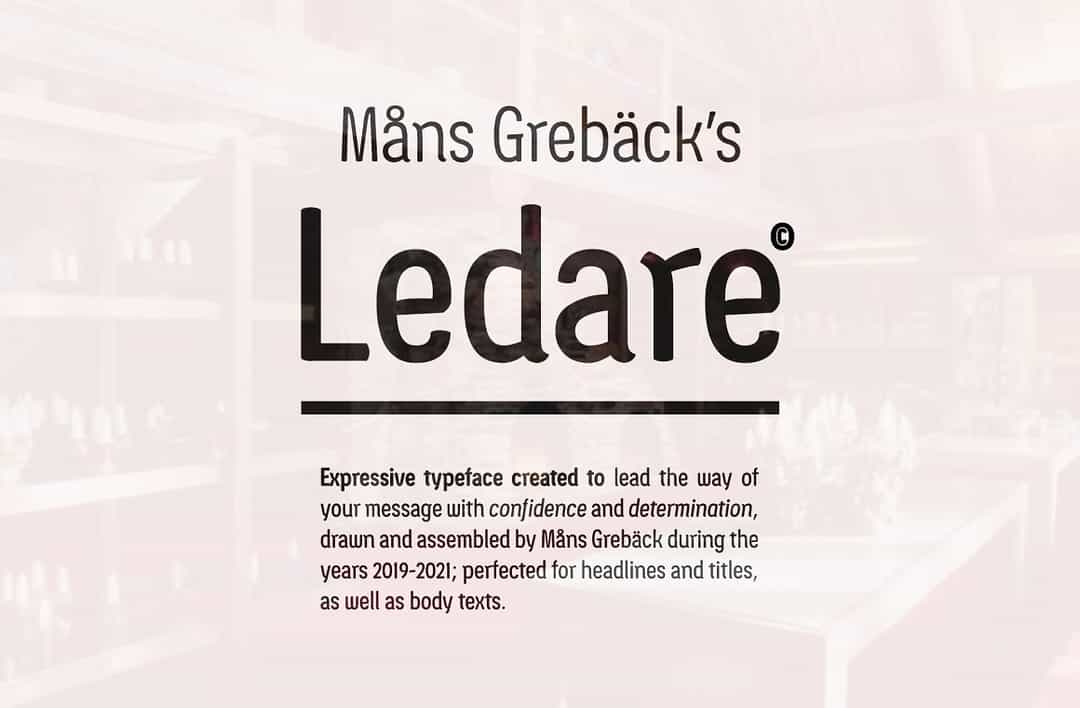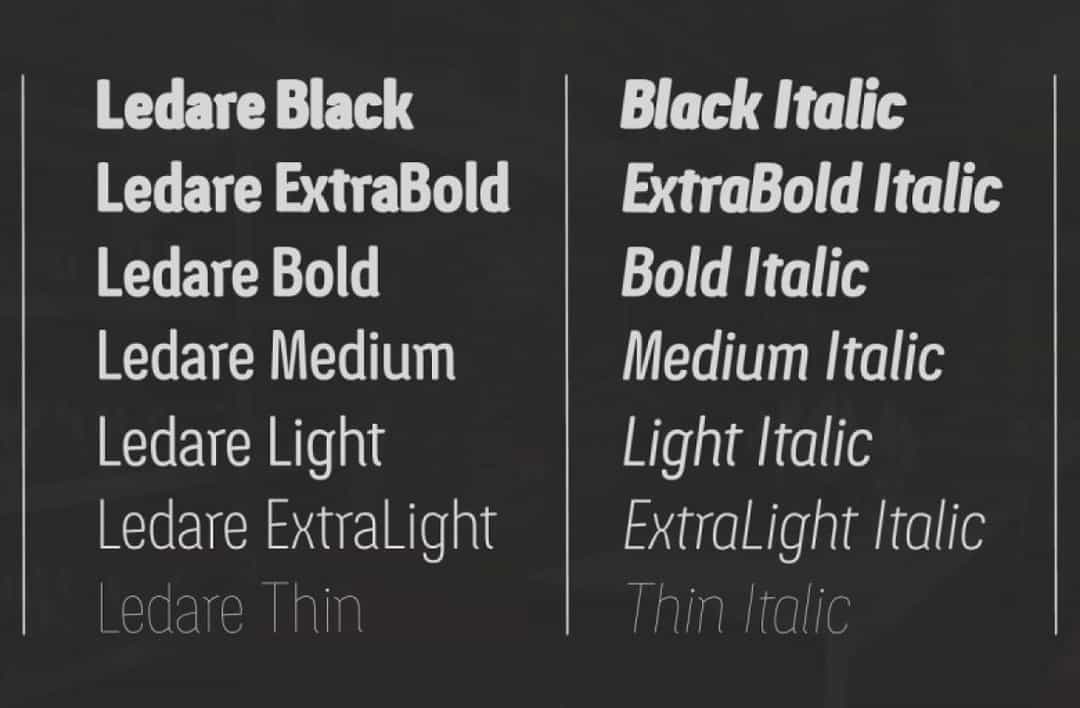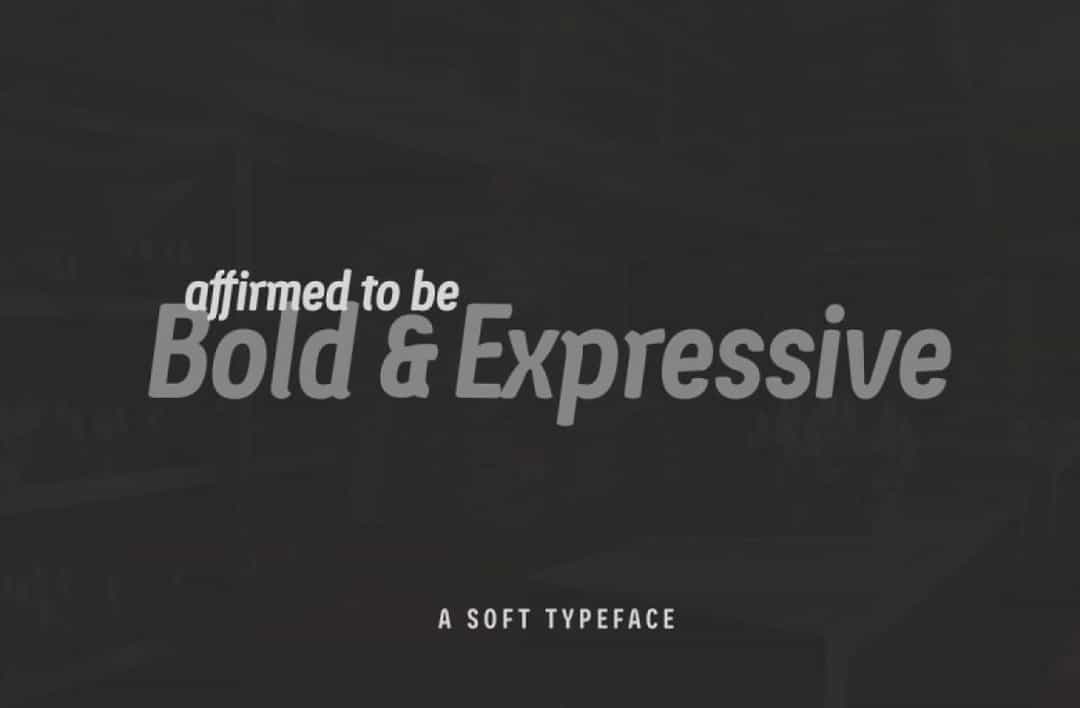
Ledare is an athletic and dynamic typeface with sans-serif design. This clear font gives your message a compelling and confident start, and although it is still professional it feels more laid back. The Ledare family includes 14 fonts: Thin, Extra Light, Light Medium Bold Black as well as Bold and Black with styles available for italic for every weight.